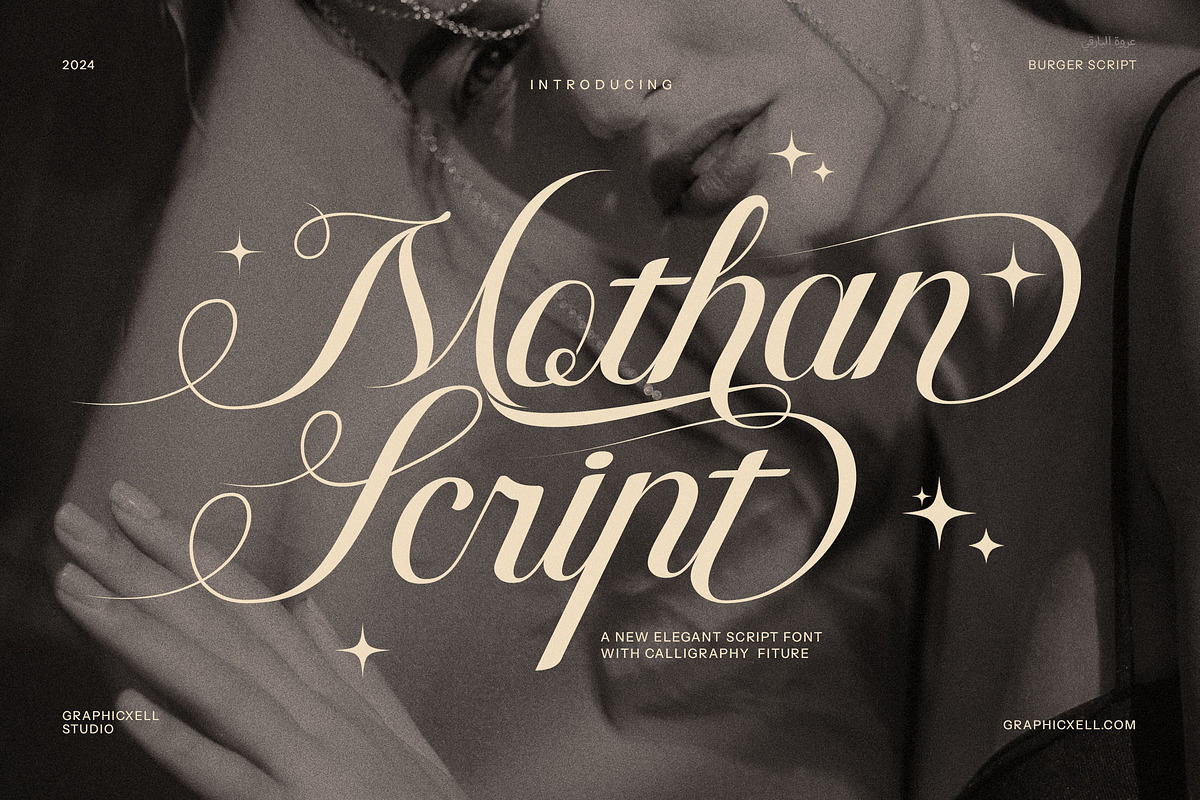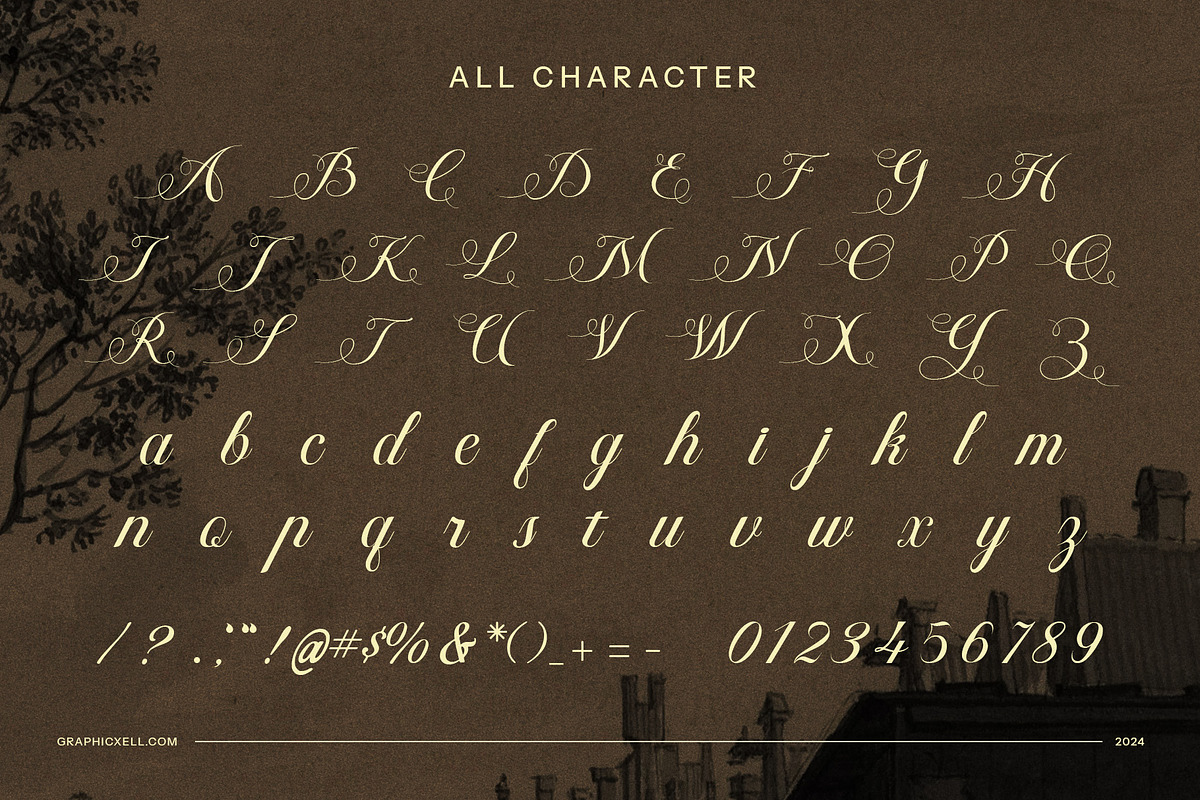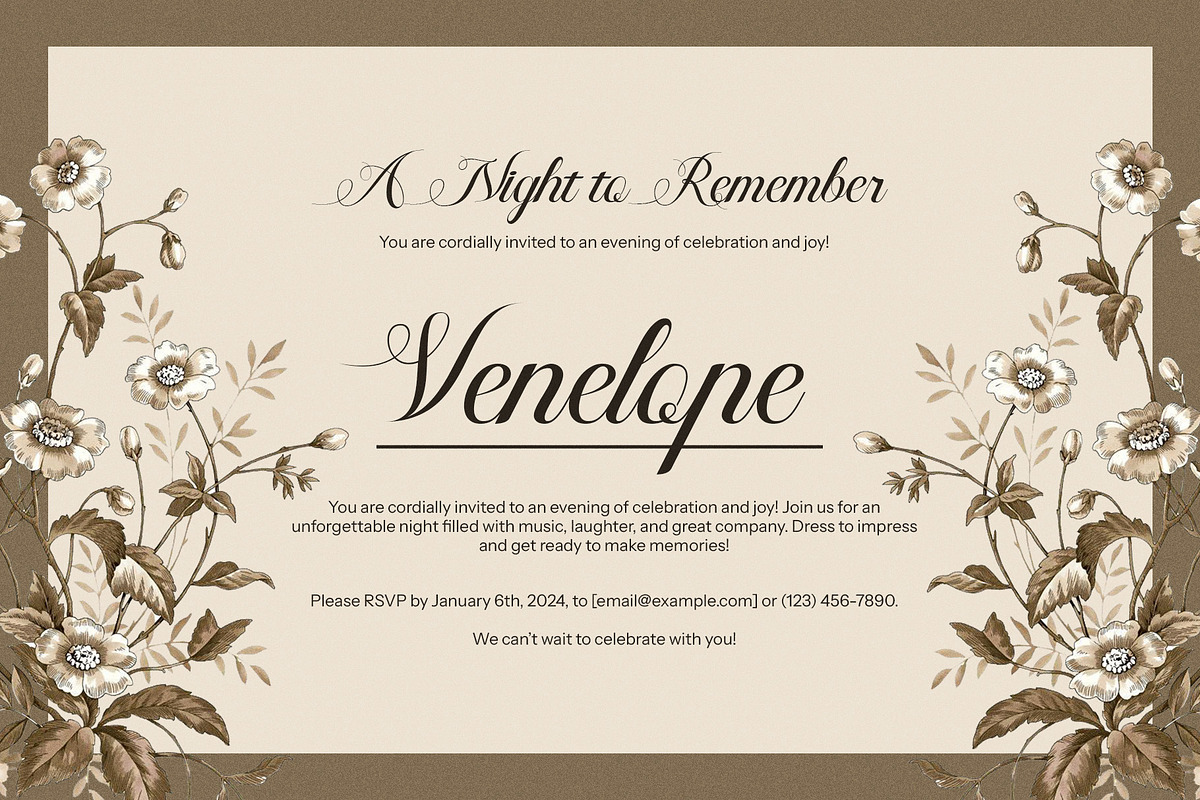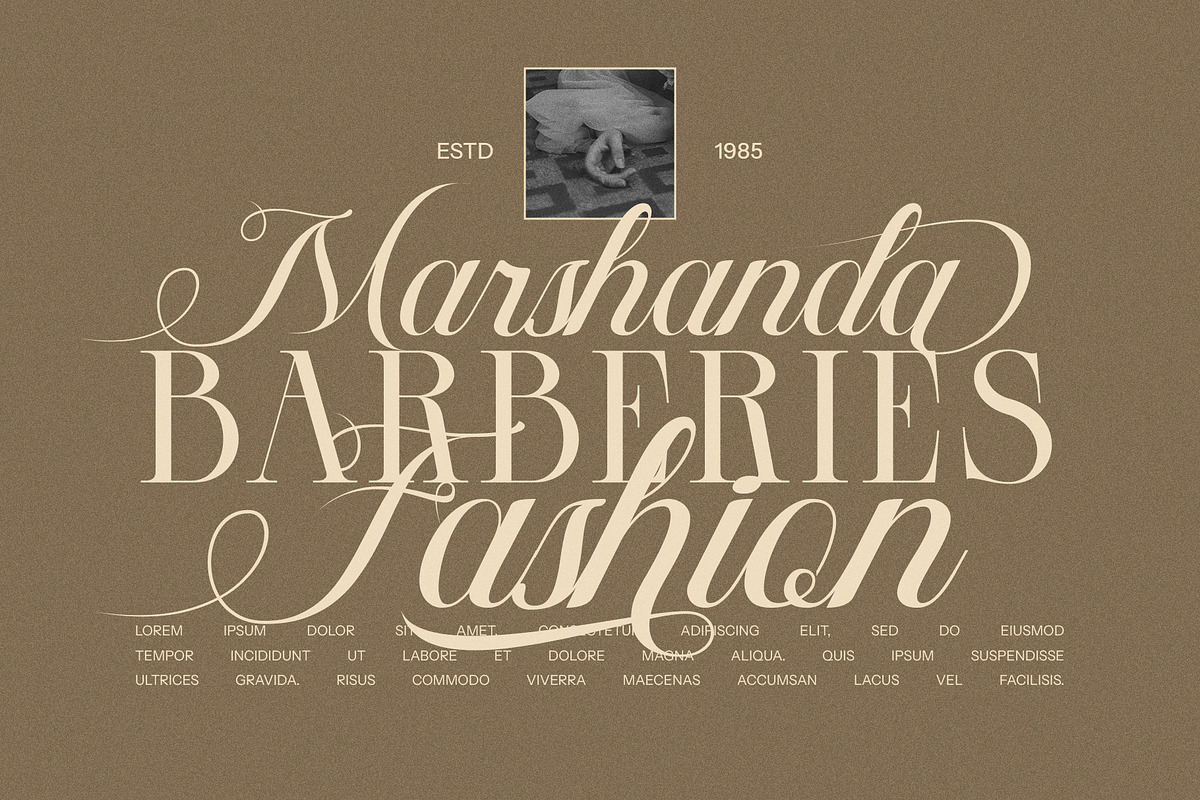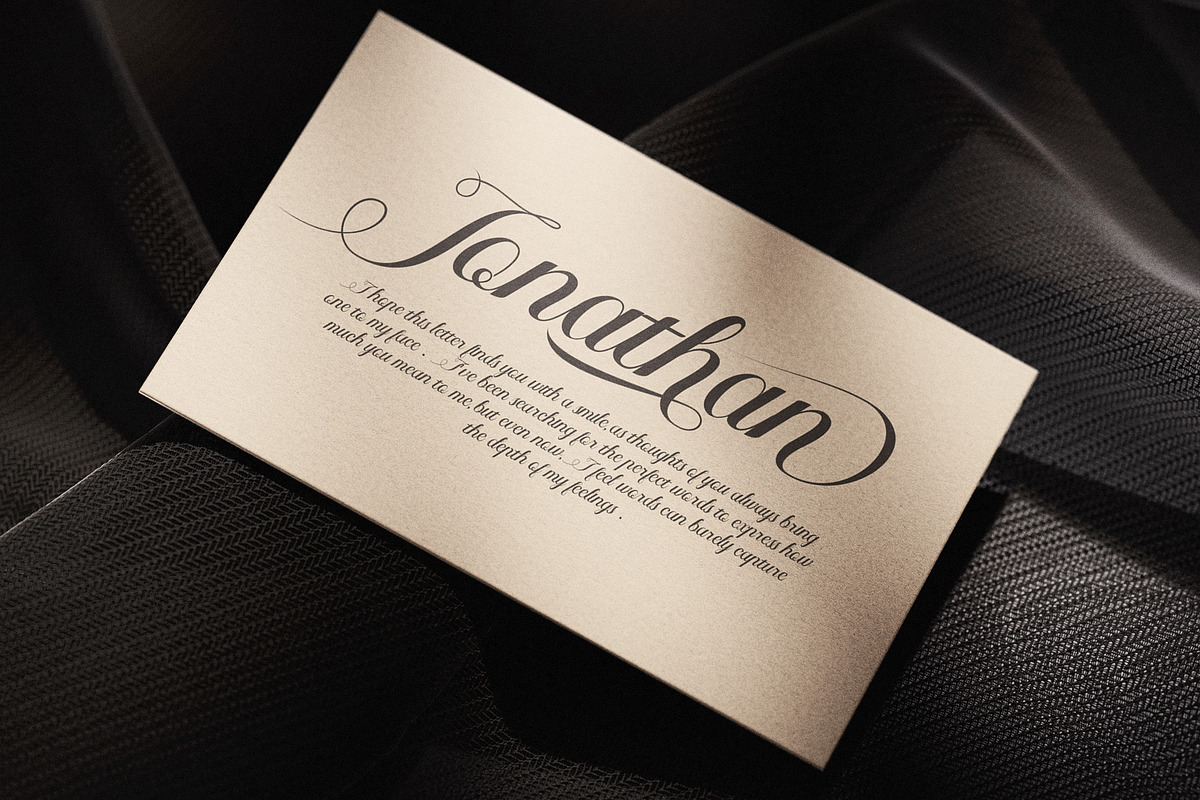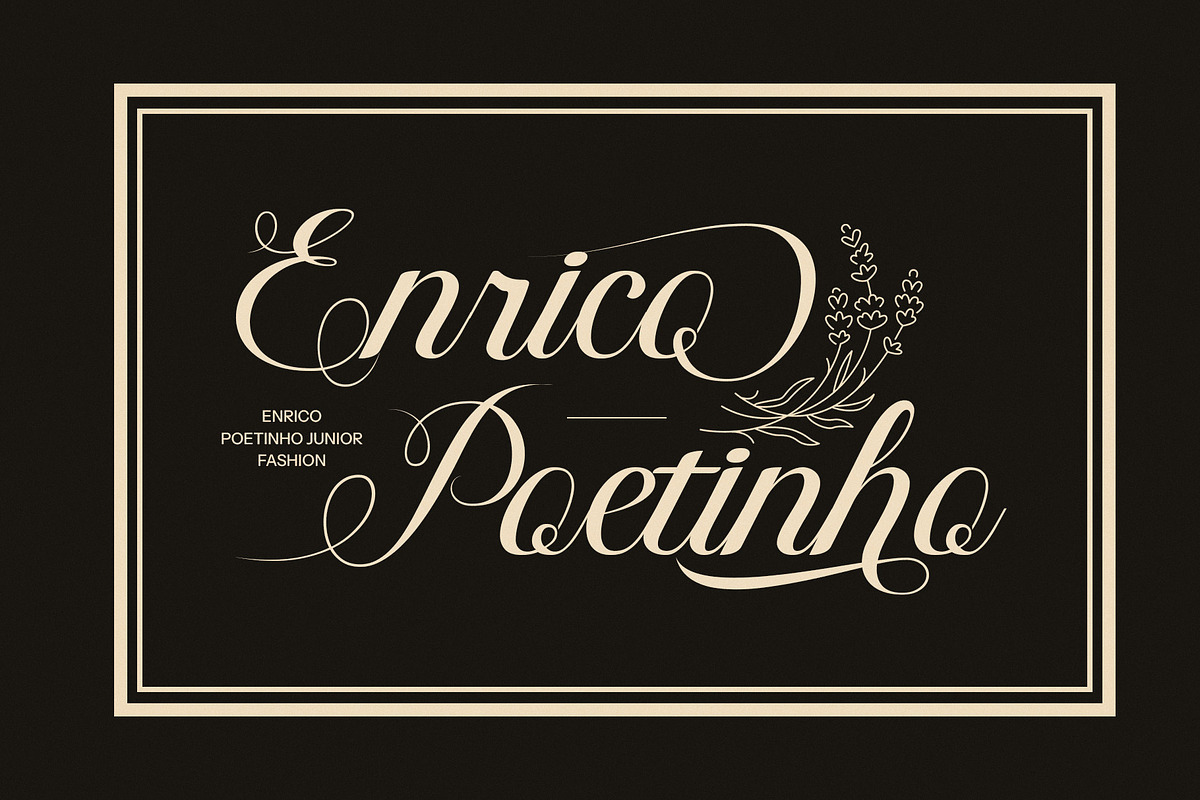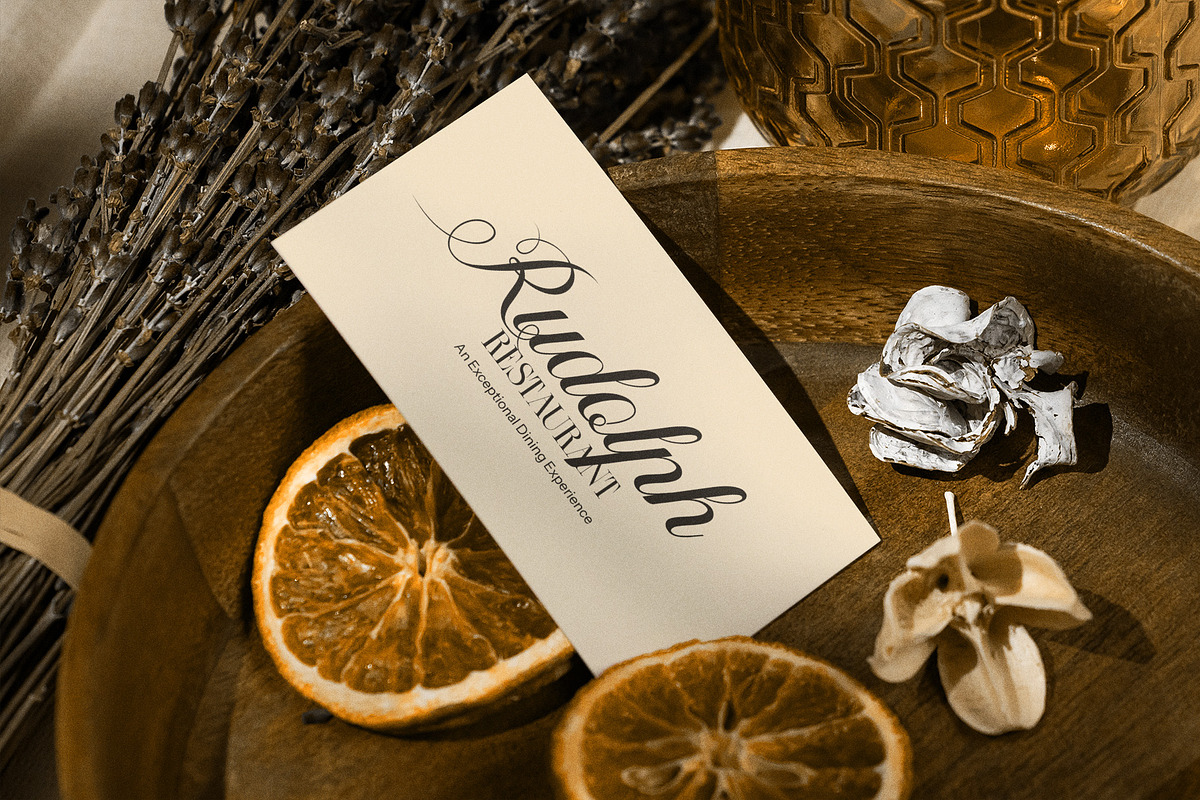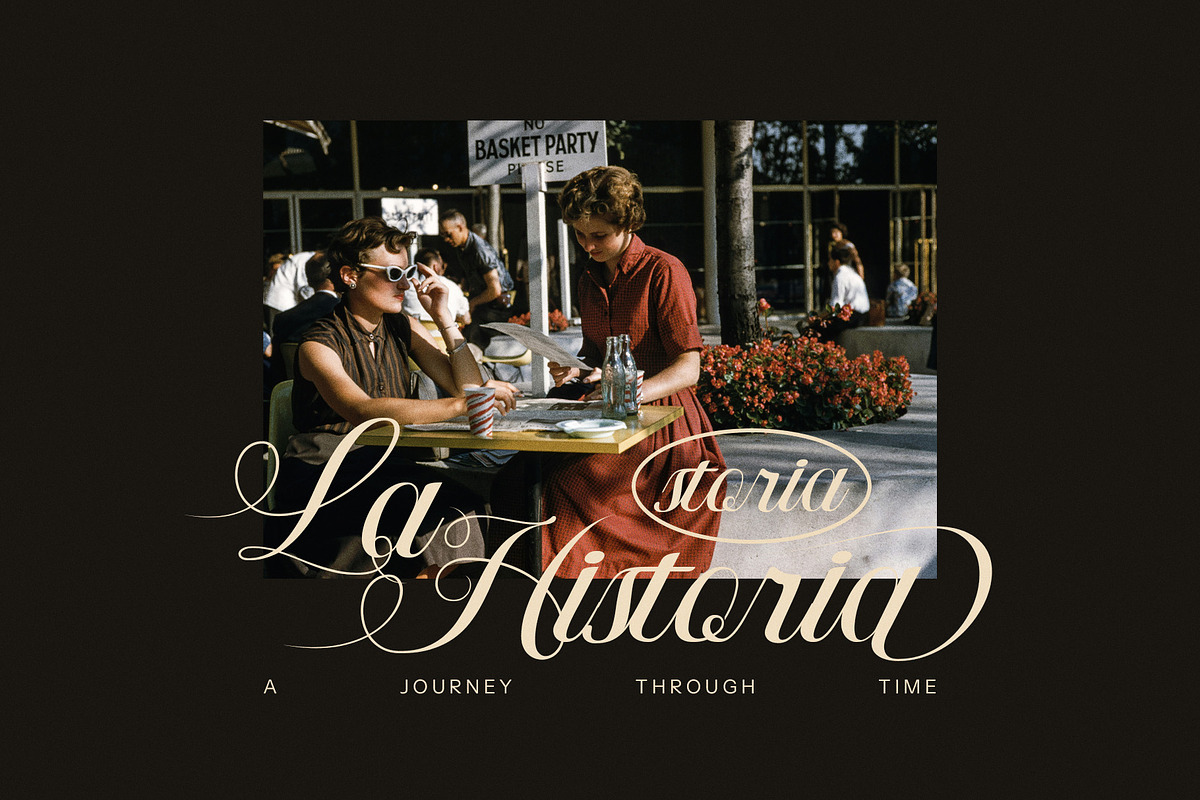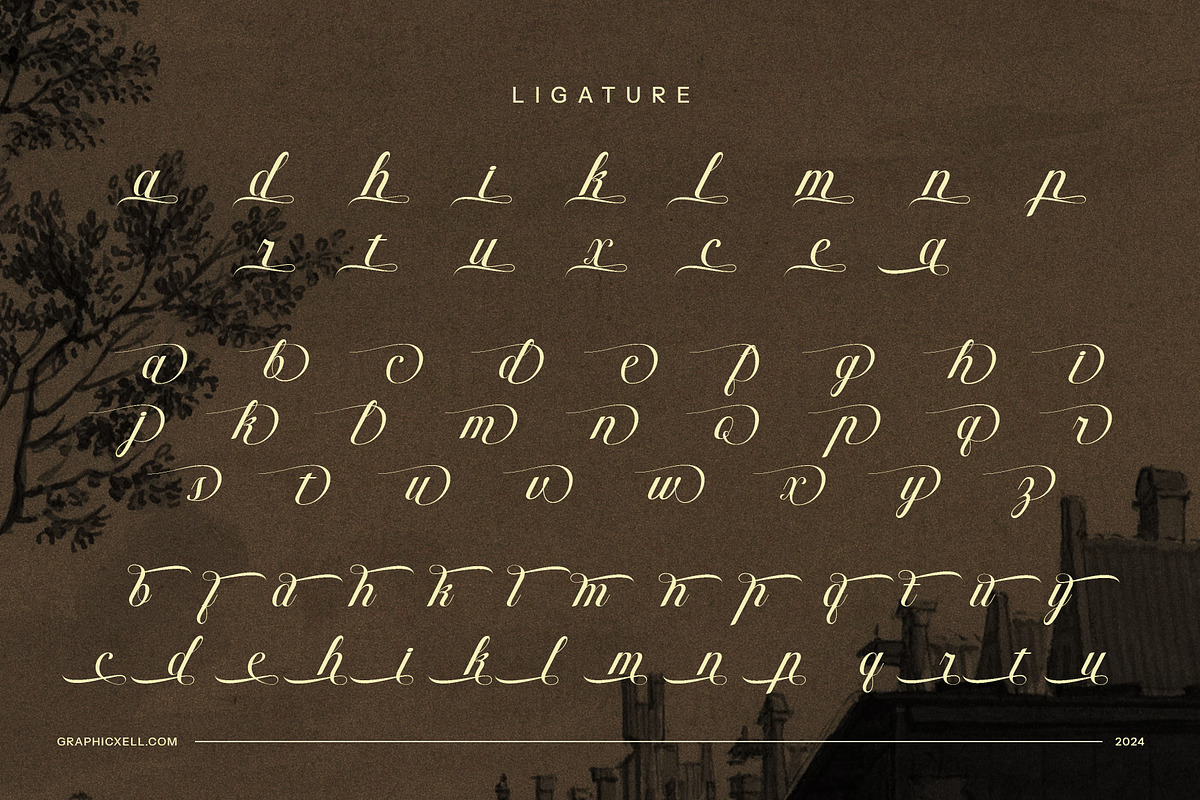
Mothan Wedding Script Font
Mothan Wedding Script Font is a refined and graceful script font designed to bring timeless elegance to your creative projects. With its exquisite calligraphic strokes and a variety of stunning alternate features, this font captures the sophistication and charm of hand-crafted lettering. Each character flows seamlessly, making it the perfect choice for creating designs that demand a touch of luxury and romance.
This font is particularly ideal for wedding-related projects, such as invitations, save-the-dates, and thank-you cards, where its delicate and classy style can set the tone for an unforgettable event. Its versatility extends far beyond weddings, making it a valuable asset for branding, logo design, album covers, posters, and more. The variety of alternate characters allows for endless creative combinations, ensuring your designs remain unique and tailored to your vision.
Mothan Wedding Script Font also shines in digital spaces, effortlessly elevating websites, advertisements, and Canva projects with its elegant flair. Its timeless appeal suits diverse applications, from magazine layouts to business cards, ensuring every project is enhanced with sophistication and style.
Whether you're crafting a romantic event invitation or designing a luxurious brand identity, Mothan Wedding Script Font provides the perfect balance of elegance and versatility. Its calligraphic charm and graceful details make it an essential tool for designers seeking to create captivating, high-end visuals with ease.